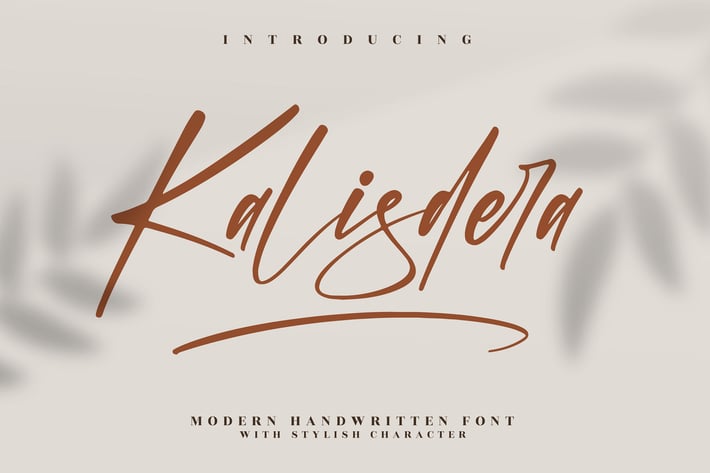
Kalisdera Modern Handwritten Font
Kalisdera Modern Handwritten Font blends a stylish handwritten flow with a soft contemporary feel, creating a refined look that effortlessly elevates any design. Its elegant strokes and modern character details make it perfect for branding, social media aesthetics, editorial layouts, and creative projects that need a personal yet polished touch.
Stylish modern handwritten style
Smooth, expressive stroke detail
High readability for print & digital
Premium, elegant character shapes
Versatile for many design themes
Give your visuals a modern handwritten charm that feels effortlessly stylish.